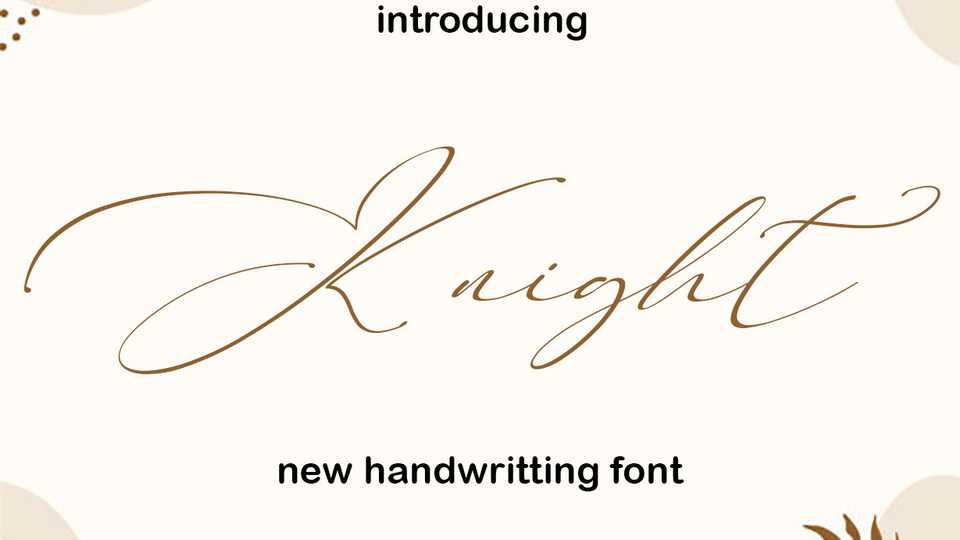
Download Knight font, a thin lettered and elegant handwritten script typeface. Knight font will elevate a wide range of crafting ideas, from cards, to branding, labels and much more.